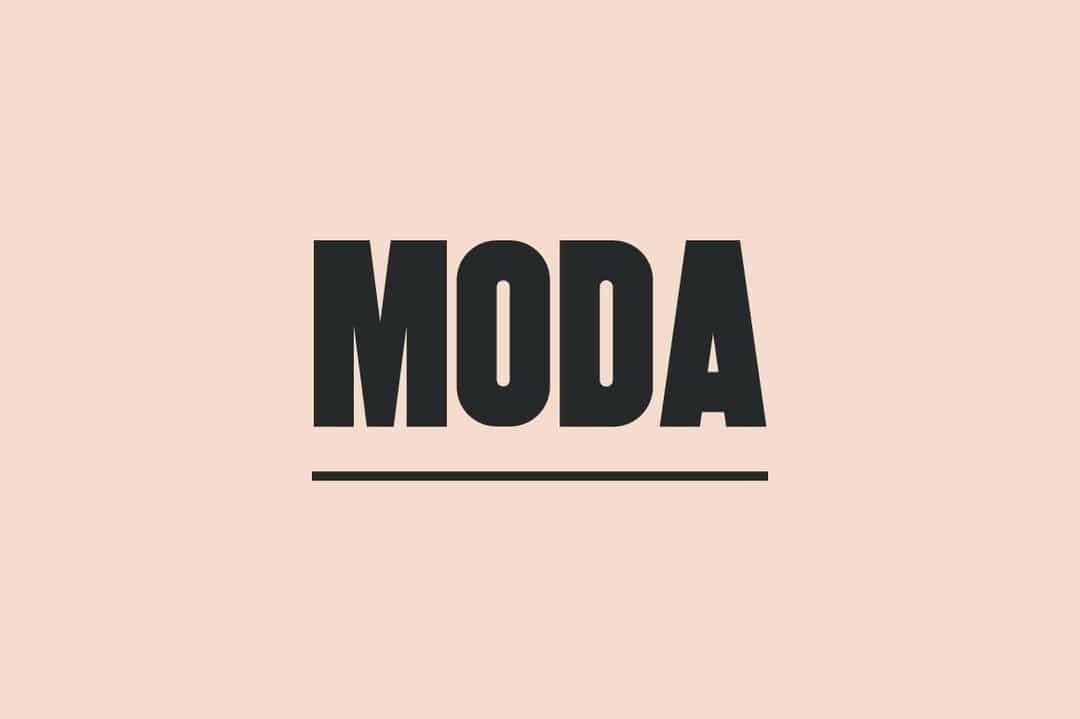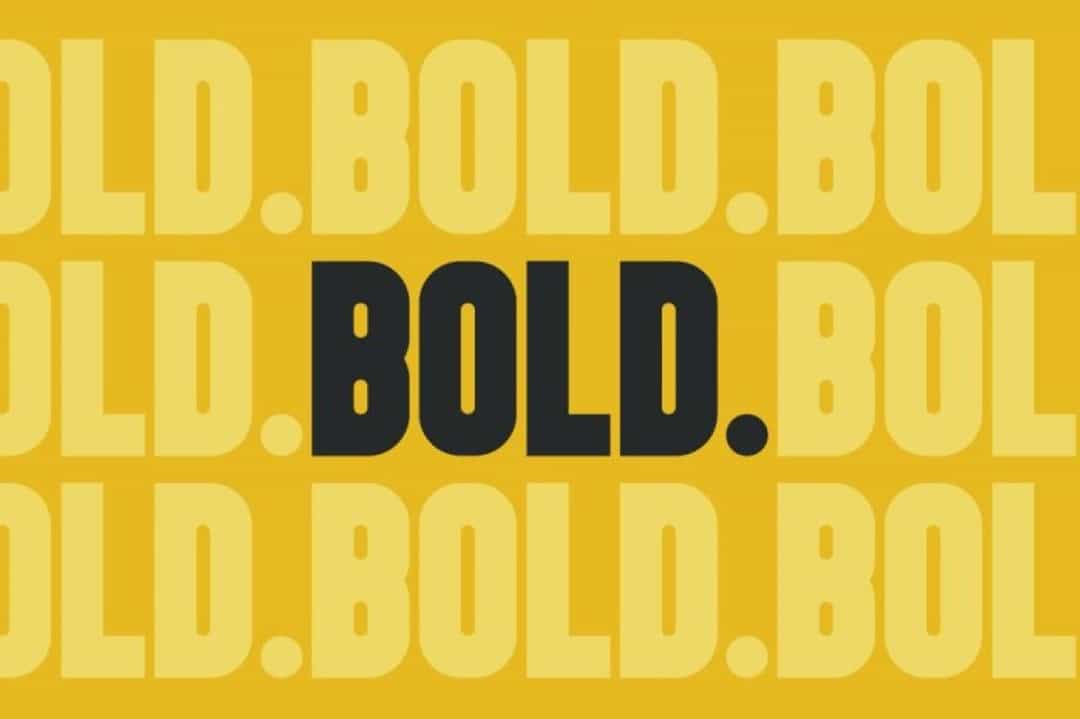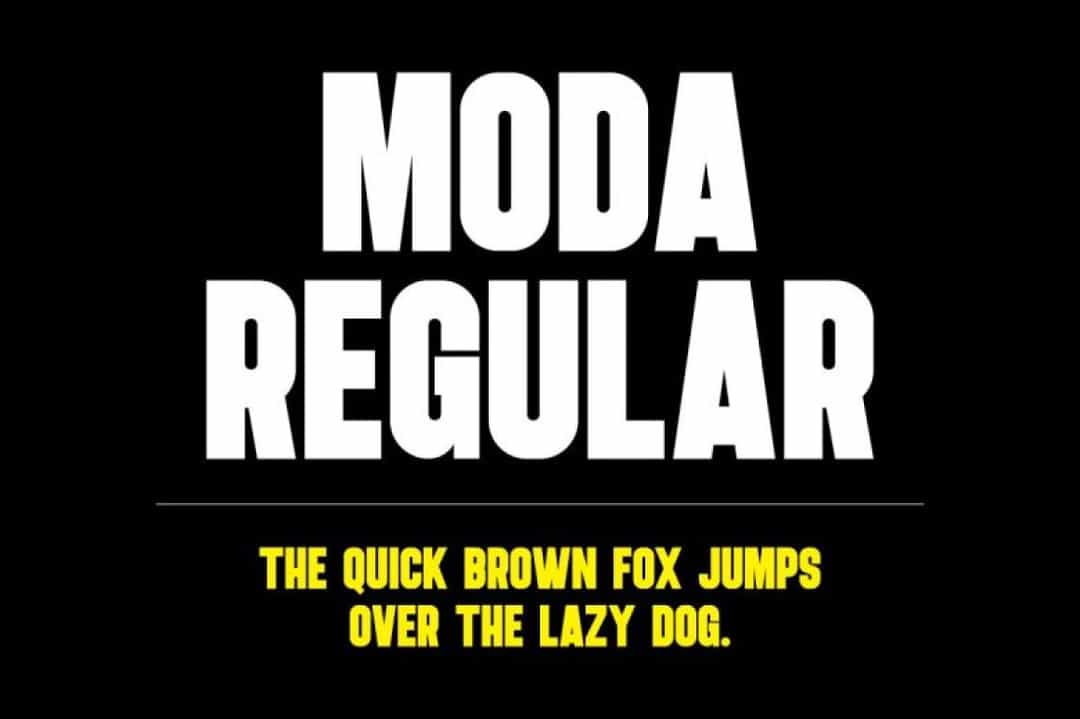
Moda, a contemporary and clean sans serif font with heavyweight features, can help create striking headlines and titles with striking images. Perfect for website headers, posters, logos, advertisements and promotions as it includes multilingual characters!